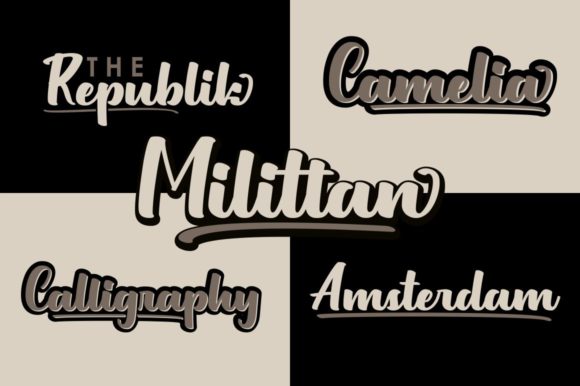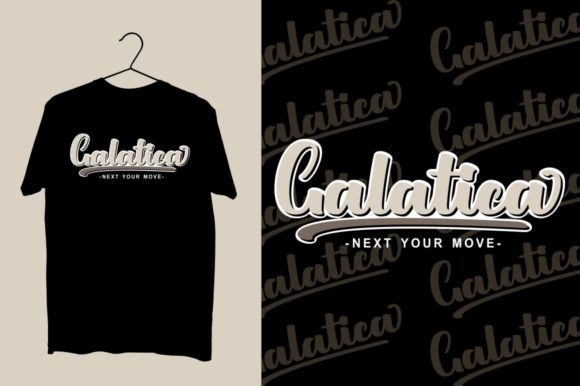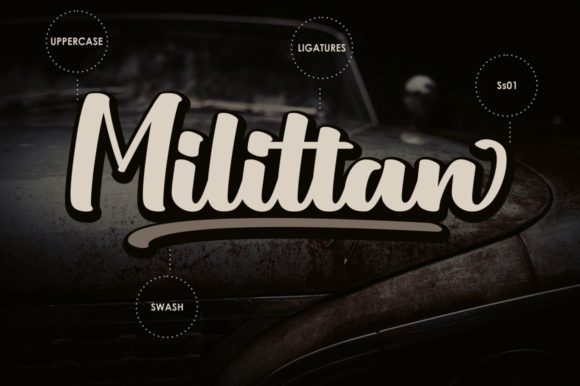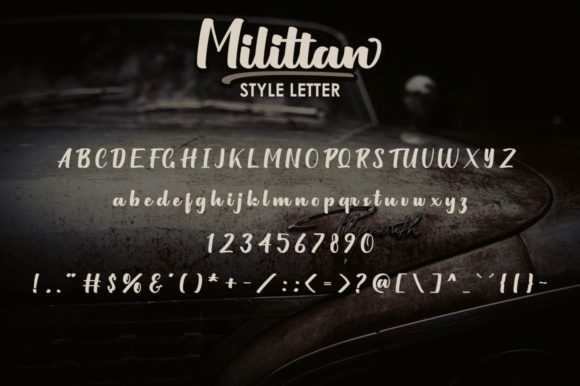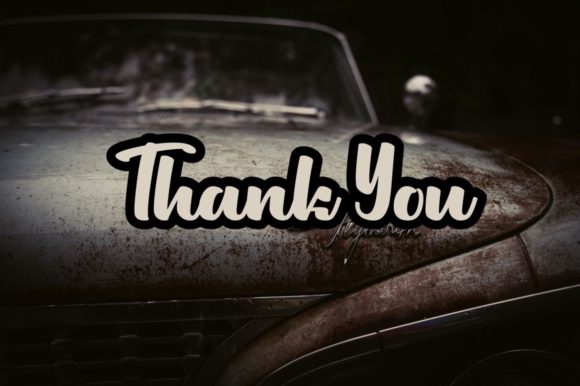
Milittan Font
About Milittan Font
Milittan is a classy and modern script font with a unique style. Use it for any design project that requires a personalized appearance!